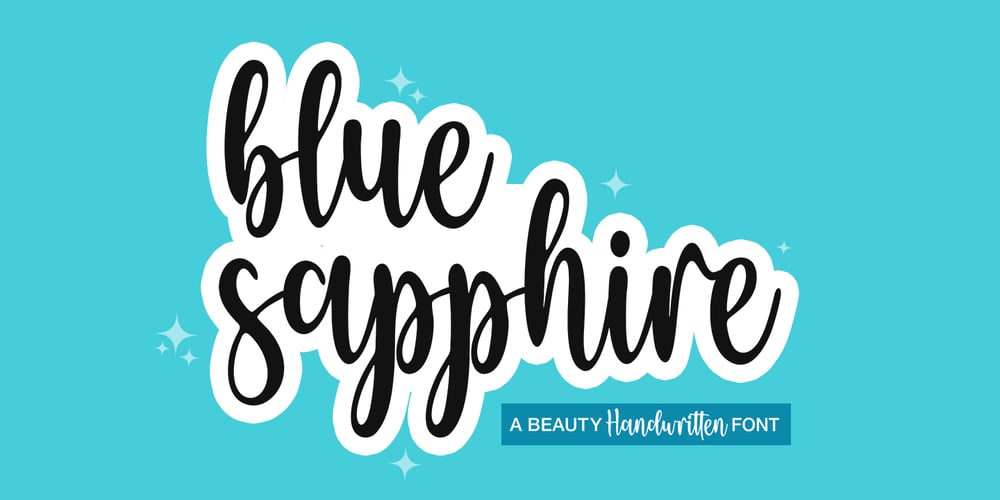
Blue Sapphire Font Family was designed by Muhajir and published by Skinny Type. Blue Sapphire contains 1 styles and family package options. Blue Sapphire is a modern handwritten script font – perfect for crafter project!This font is perfect for farmhouse decor, svg designs, shirts, crafts, websites, branding, blogs, logos, invitations and more!This purchase includes TTF & OTF font files.Most accent characters are included.Thank you!